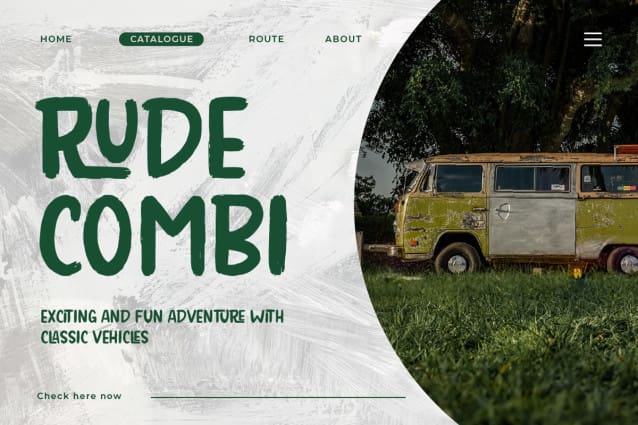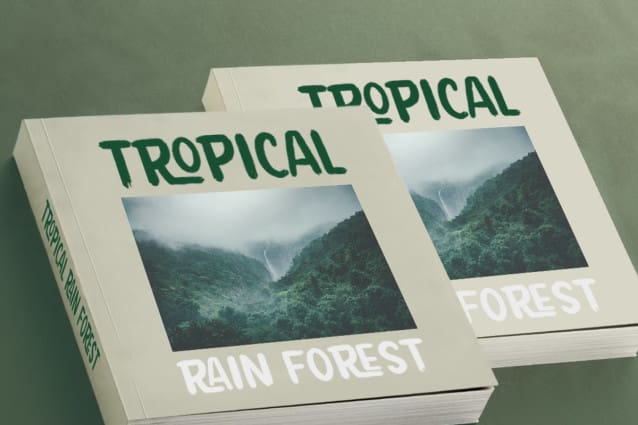
King Trufle Font
King Trufle Font is display fun font with a bold and rough style. This font is good for logo design, Social media, Movie Titles, Books Titles, short text even long text letters, and good for your secondary text font with sans or serif.